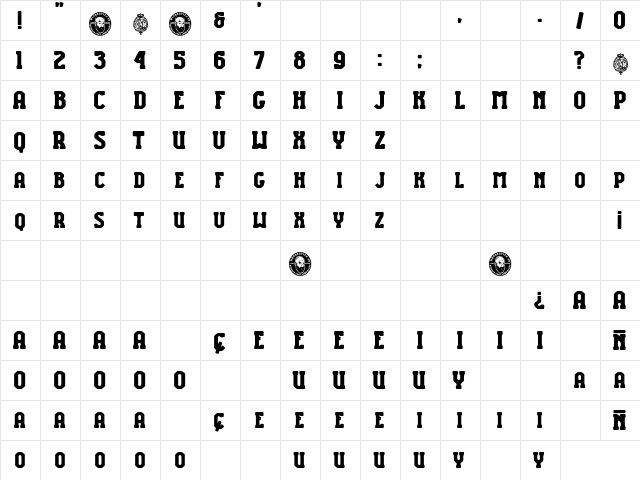
National College Regular
Design Context for National College Typeface
National College has the bold swagger of sports branding: strong, assertive letterforms designed to dominate headlines and jerseys alike.
Built for sports team identities, athletic apparel, event posters, and high-energy promotional material.
Pro Tip: National College thrives on contrast — try it large, bold, and tight against a clean background for maximum visual impact.